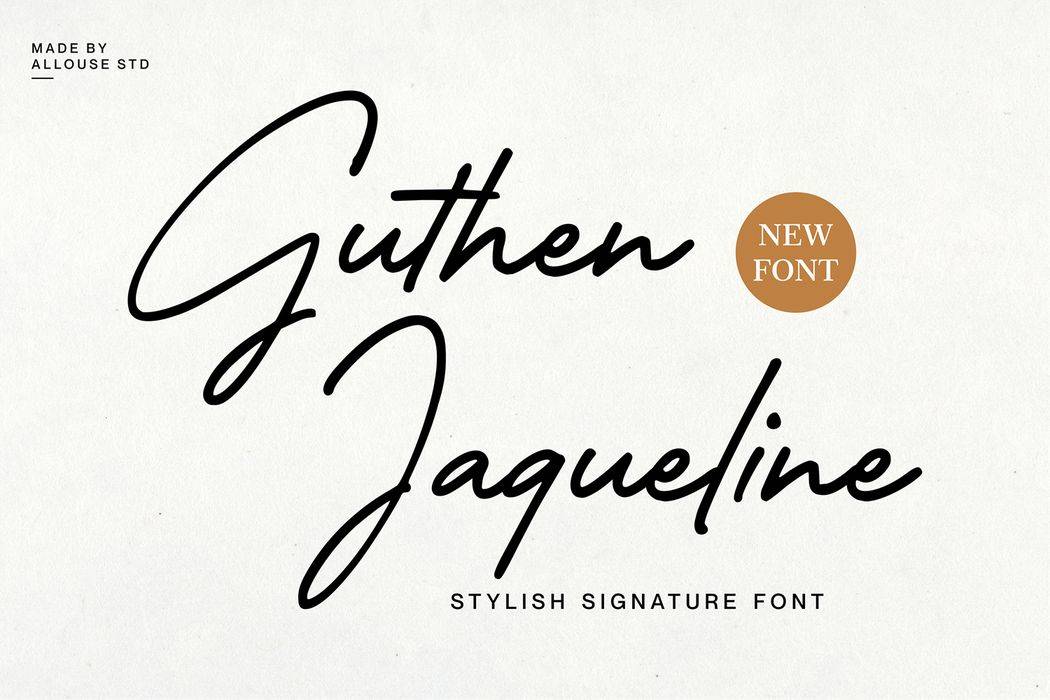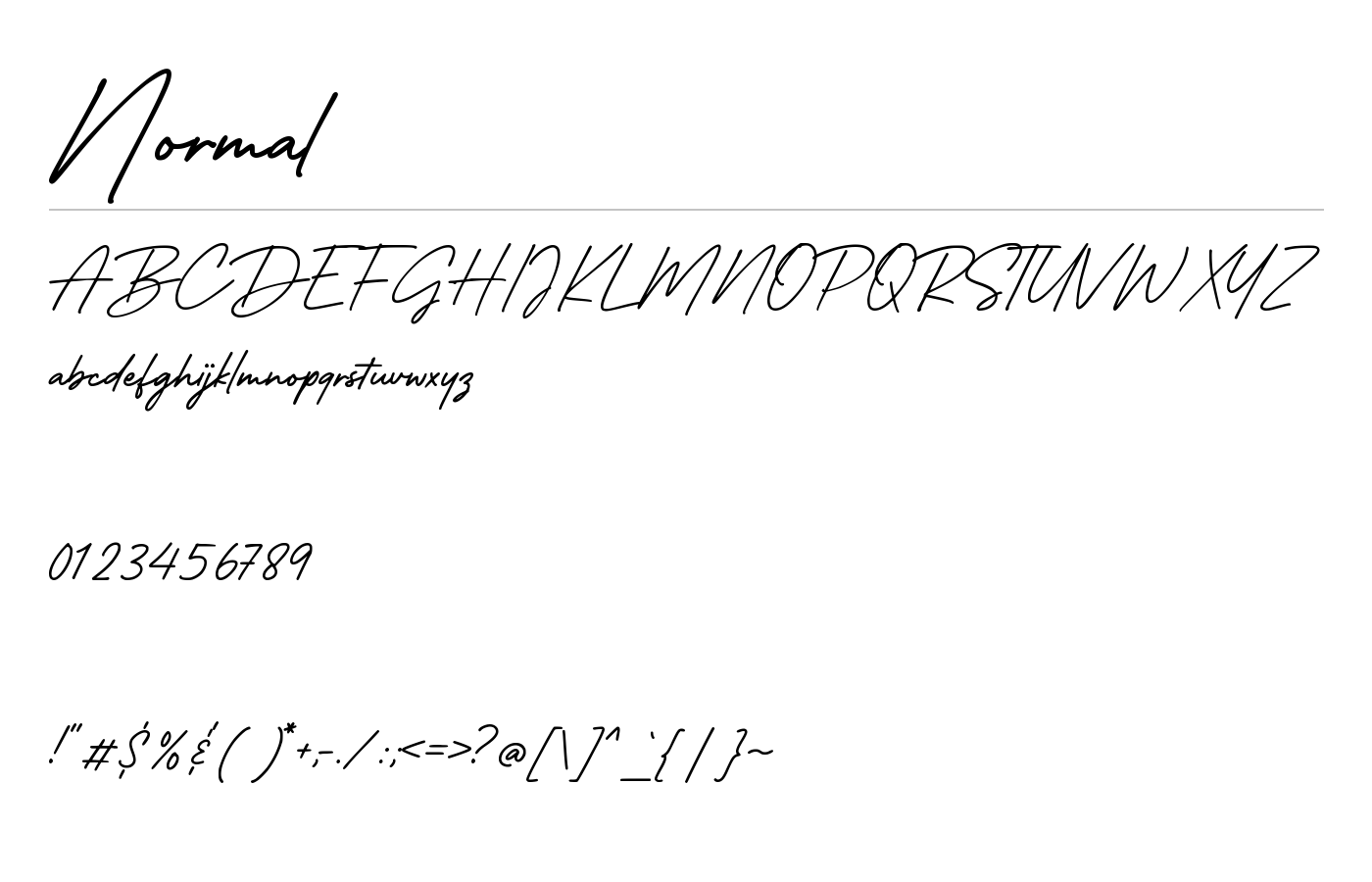
Guthen Jaqueline is a delicate, handwritten script font with a natural, flowing style that feels personal and inviting. Its thin strokes and graceful letterforms create an elegant yet casual vibe, making it ideal for creative projects like invitations, branding, or social media where a touch of warmth and individuality is desired. This font works best in headlines, logos, or decorative text where its unique charm can stand out without sacrificing legibility.
Guthen Jaqueline Font
About Guthen Jaqueline Font